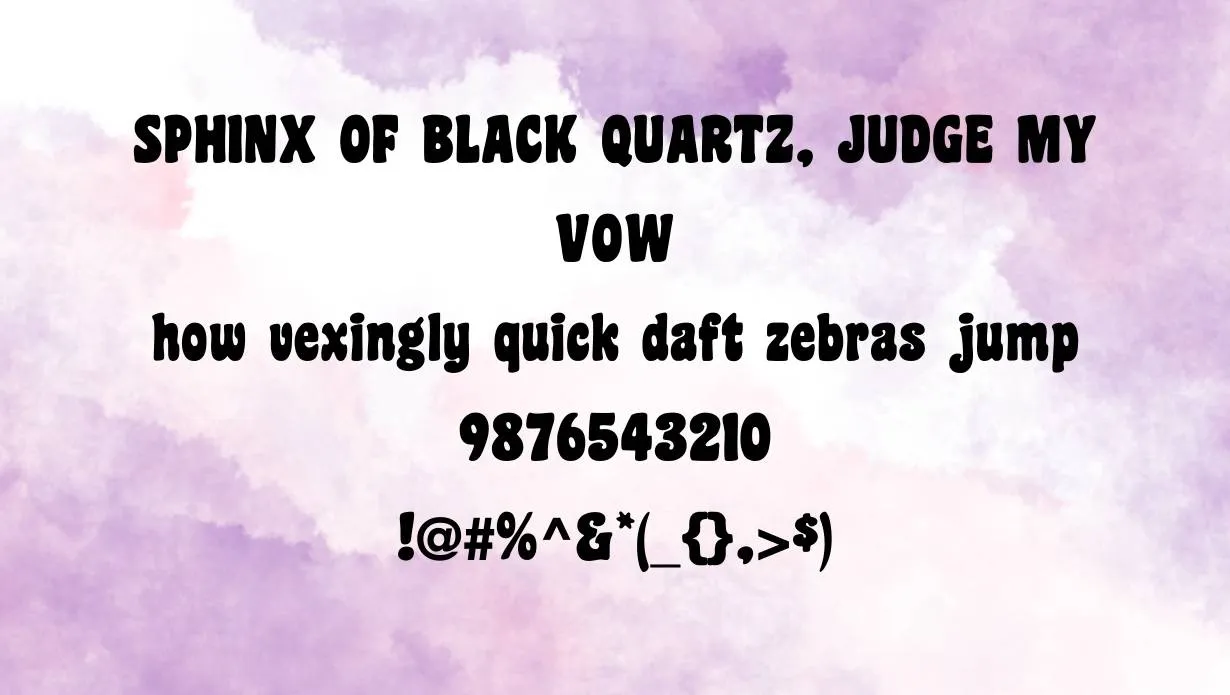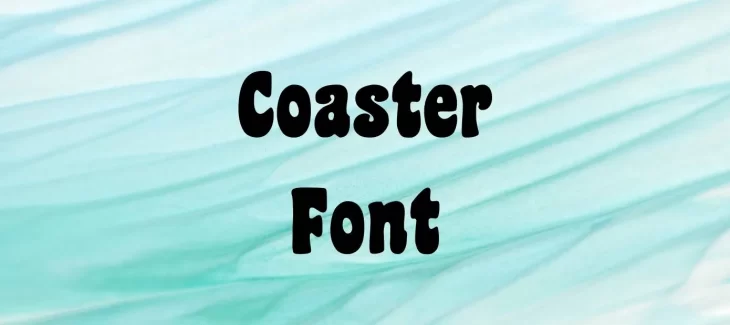
Coaster Font is a script typeface that was created by designer Andrew Paglinawan. The font was released in 2014 and has since become one of the most popular fancy fonts used by graphic designers and web developers. The Font family includes 4 different weights (light, regular, bold, and black) and supports Latin, Cyrillic, and Greek languages.
Some of the unique features of this font include its tall x-height, wide apertures, and small counterforms. You can also use the gleegoo font which is closest to this font family. These features give the font a unique look that is both modern and classic.
This Font is a great choice for both personal and professional use. It is perfect for creating logos, branding materials, website headers, and more. If you are looking for a fancy font that is both stylish and versatile, then this font is the perfect choice for you.
Who Used Coaster Font?
This font is also commonly used for wedding invitations and other formal occasions. If you are looking for a font that will make your invitations stand out, then this is a perfect choice. This is a beautiful and elegant font that is sure to impress your guests.
Coaster Font Family Appearance
| Name | Coaster Font |
| Designer | Andrew Paglinawan |
| Style | Script |
Family of Coaster Font
- Coaster Light
- Coaster Regular
- Coaster Bold
- Coaster Black
What font looks good with Coaster?
There are many fonts that look good with Coaster. Some of our favorites include Montserrat, Lato.
What is Coaster Font used for?
This font style is commonly used for headlines and display purposes. It can be used in both digital and print media.
Is Coaster a good website font?
This font is an excellent choice for website headers and other display purposes. It is easy to read and has a modern look that will make your website stand out.